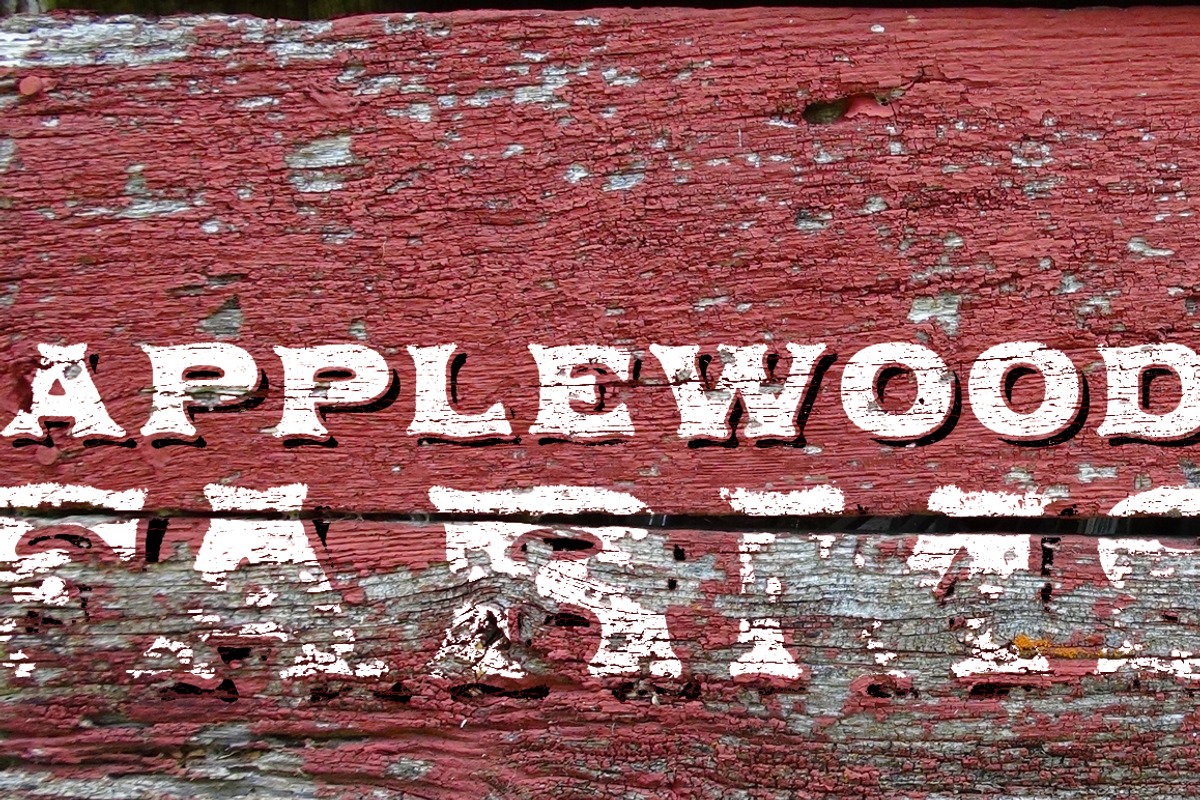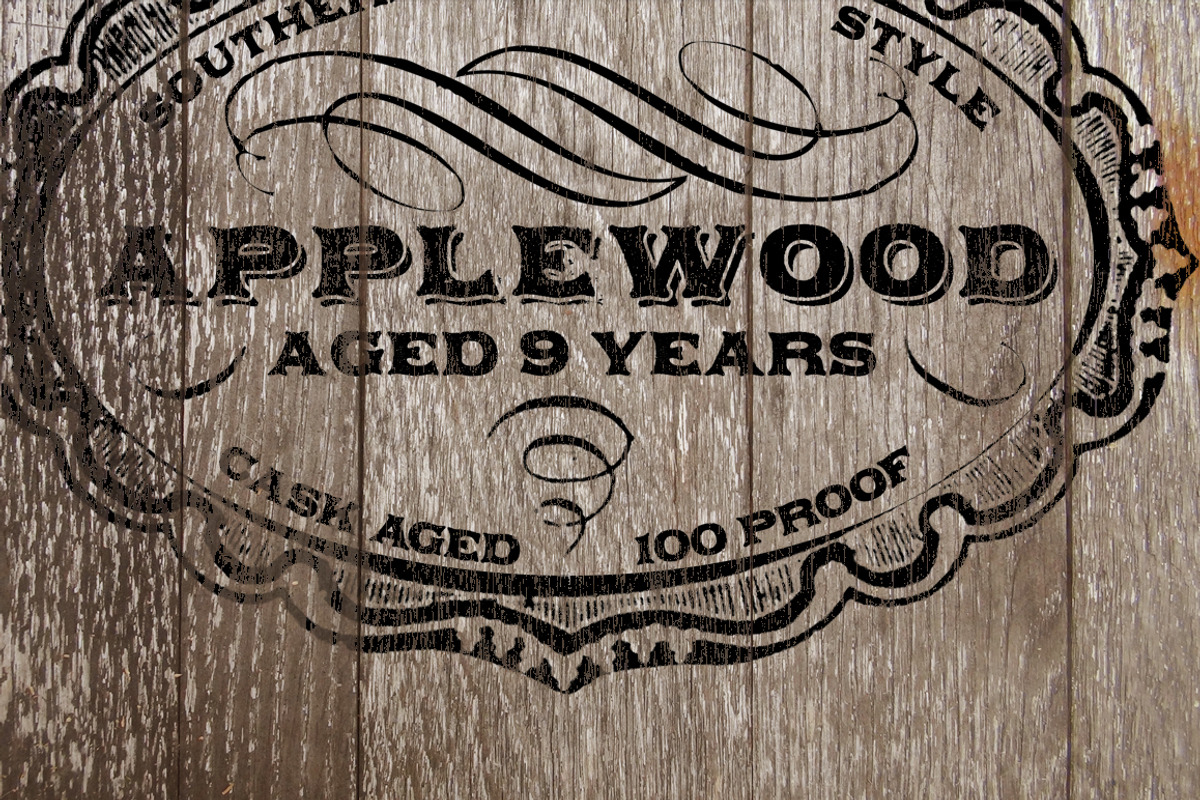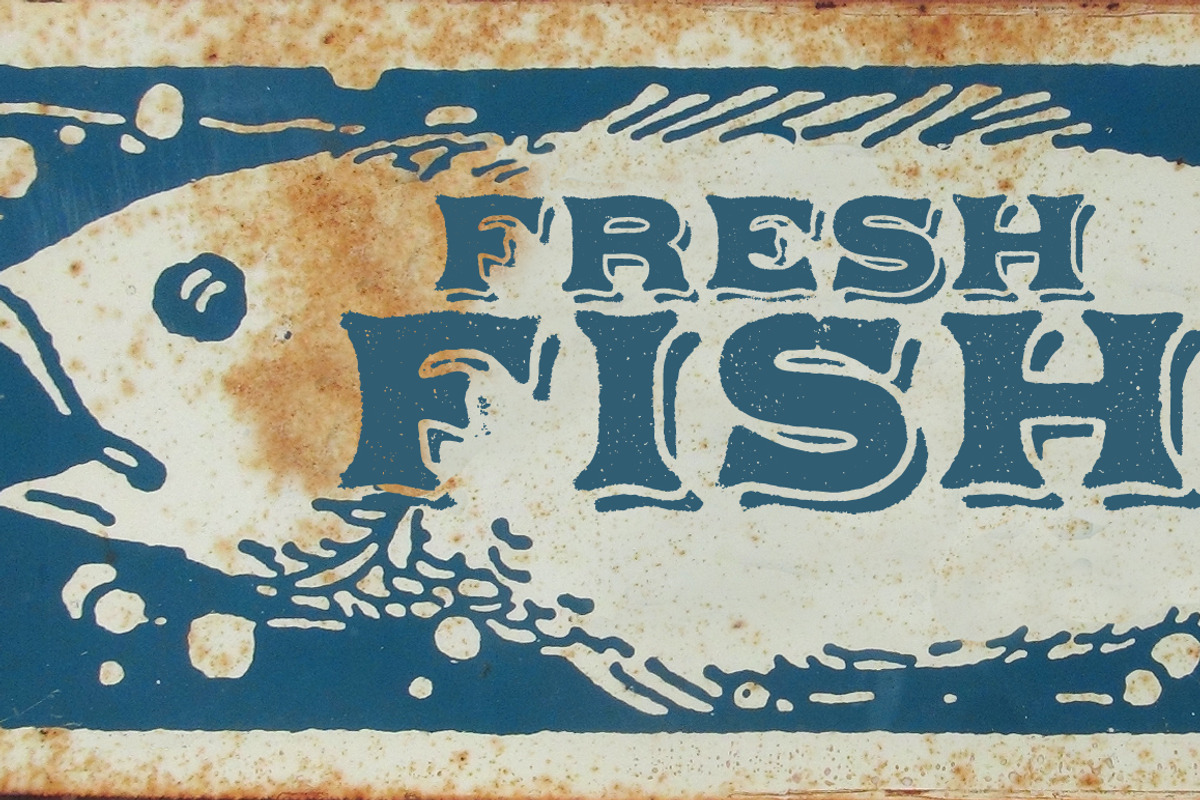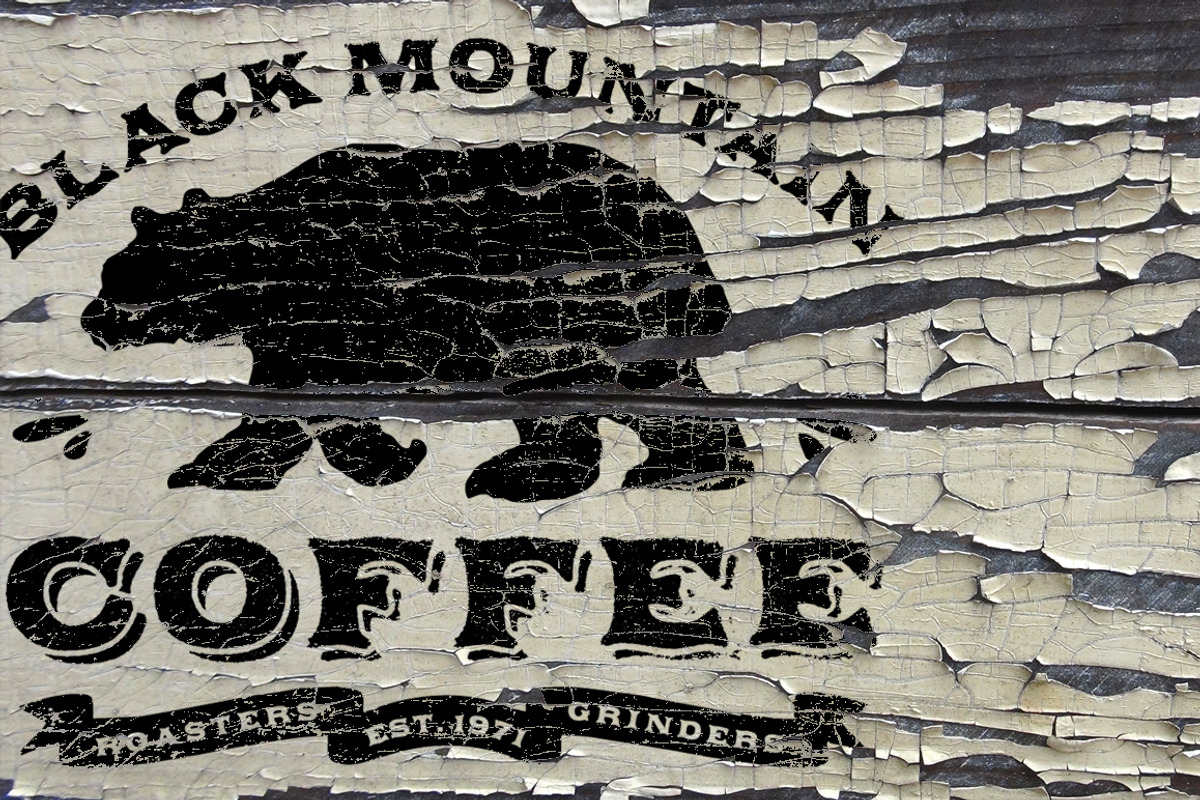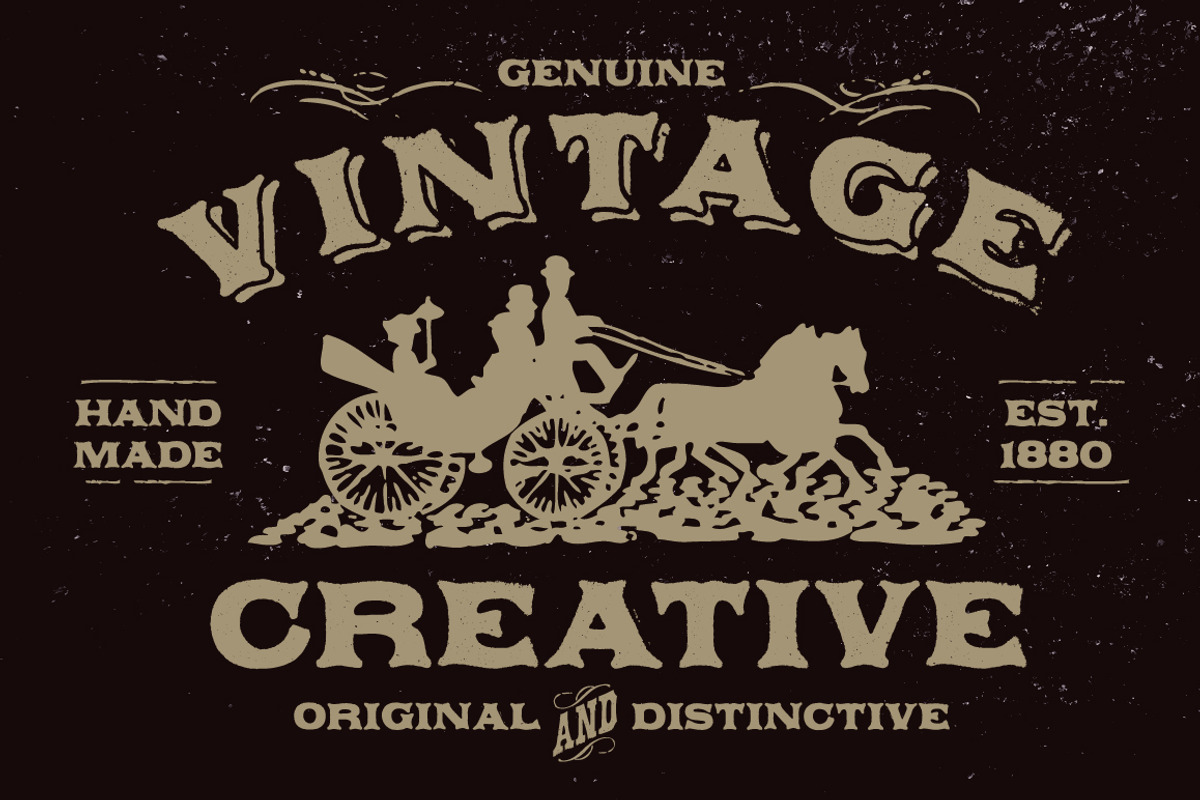
Applewood Shadow font
Applewood Shadow font by Aerotype is a font selected for branding, posters, packaging, typography.
- The Applewood family has three fonts; Regular, Alternate and Shadow, and use OpenType features to substitute a unique pairing of characters
- The Applewood Shadow font can be overlapped with Applewood Alternate to color the drop shadow separately.
Why Applewood Shadow font is worth a look
Applewood Shadow font by Aerotype fits naturally into Branding, posters, packaging, typography.